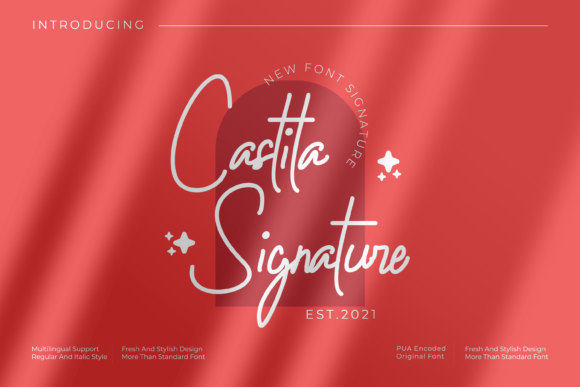
The Perfect Touch of Elegance: Castila Signature Font
There’s something magical about holding a pen and letting your creativity flow onto a blank page. The scratch of the nib, the dance of the ink – it’s a moment of pure joy, and one that can spark a world of inspiration. For designers, this moment is often the starting point for a new project, and the right font can make all the difference. That’s where the Castila Signature Font comes in – a stunning handwritten typeface that adds a touch of luxury and sophistication to any design.
This beautiful font is the perfect choice for designers who want to create premium, high-end projects that exude style and elegance. Whether it’s a homeware design, a branding project, or a photography concept, the Castila Signature Font is sure to make a lasting impression. Its unique, modern aesthetic is both timeless and trendy, making it a valuable addition to any designer’s toolkit.
Castila Signature Font Key Features
- Font Family: Castila Signature Font is a unique, hand-drawn script font designed to resemble a signature.
- Font Size: The font is designed to be used at a large size, typically ranging from 24pt to 72pt, to emphasize the handwritten feel.
- Unique Characteristics: This font features a flowing, cursive script with subtle variations in letterform and spacing to mimic the natural movement of a handwritten signature.
Castila Signature Font Review
I recently had the chance to work with the Castila Signature Font, and I must say it’s a beautiful addition to any design project. ✨ The elegant script style is perfect for creating a sense of luxury and sophistication, making it ideal for branding, invitations, and other high-end designs.
Here are some of the things I liked about the font:
- ✨ High-quality design: The Castila Signature Font is meticulously crafted, with every letterform showing attention to detail and a clear understanding of typography.
- ✨ Versatility: The font works well in both digital and print applications, making it a great choice for designers who need to adapt their work across different mediums.
- ✨ Unique character: The Castila Signature Font has a distinct personality that sets it apart from more generic script fonts.
- ⚠️ Limited character set: The font may not include as many characters as you’d like, which could be a problem if you need to work with non-English text.
- ⚠️ Not ideal for body text: While the Castila Signature Font is perfect for headlines and titles, it may be too ornate for use in body text, where legibility is key.
Overall, I’m impressed with the Castila Signature Font, but I do think it’s essential to be aware of its limitations before using it in your designs. With some careful planning and selection of the right use cases, this font can be a real showstopper.
The Castila Signature Font is ideal for:
1. Branding and logos.
2. Stationery and letterheads.
3. Business cards and marketing materials.
4. Digital products and online courses.